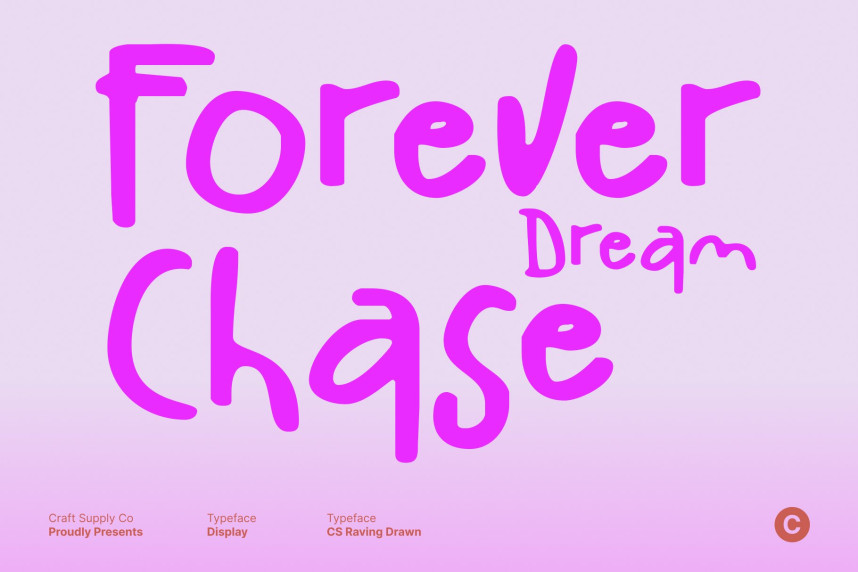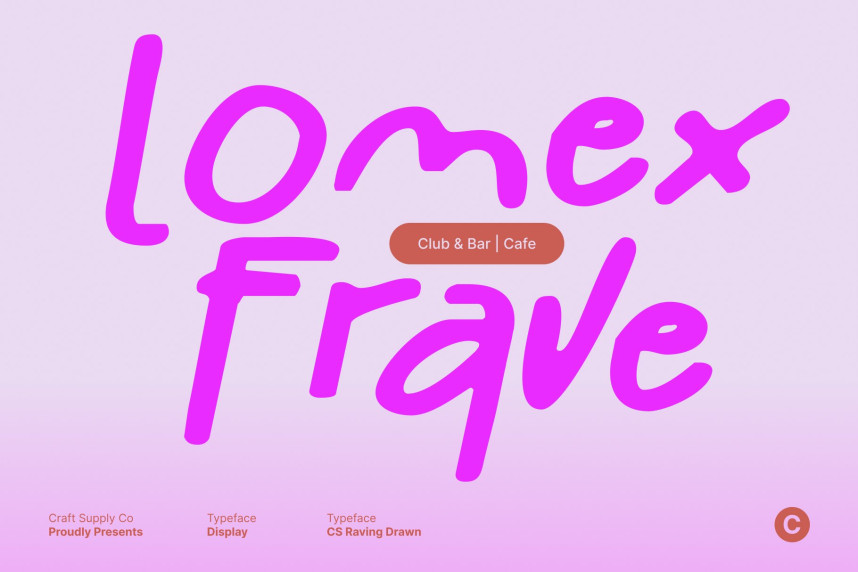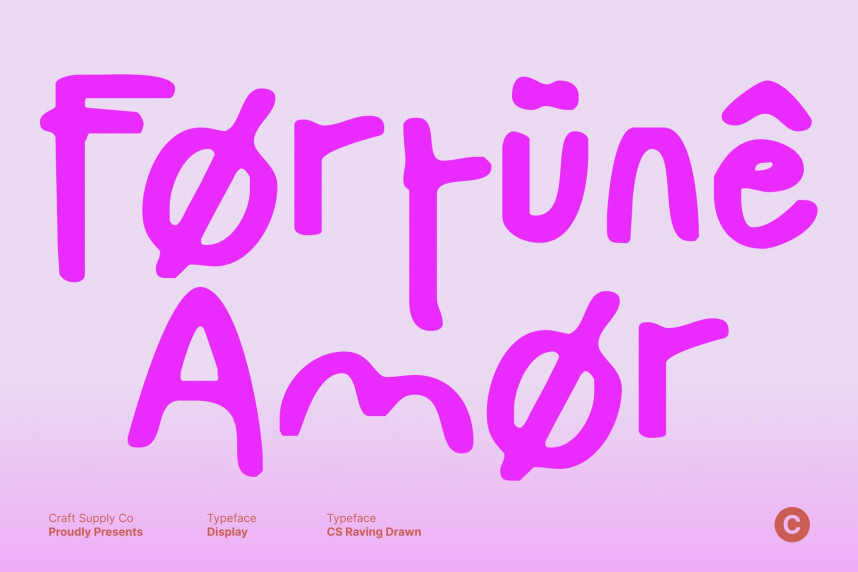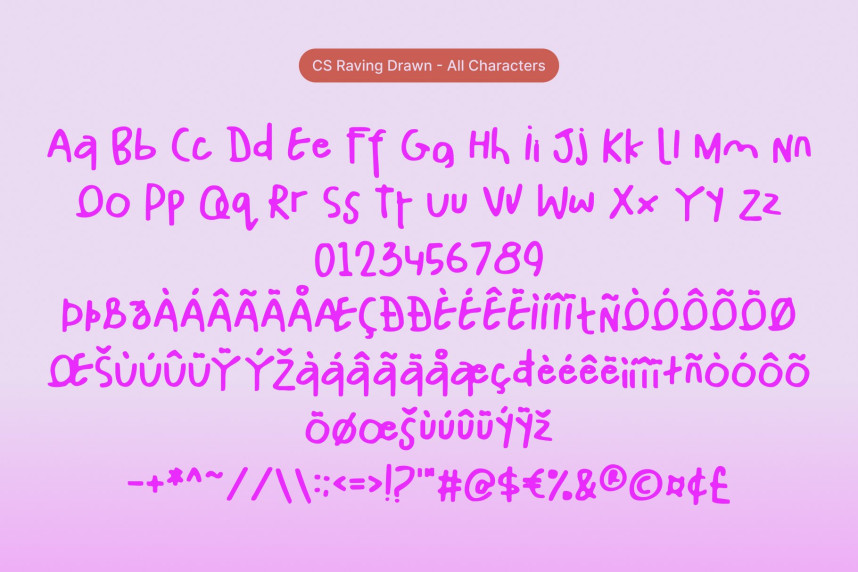
CS Raving Drawn Font
CS Raving Drawn Font – Boldly Irregular and Playful Messy Handwritten Display with Raw Energy. This is a messy handwritten display font built from irregular, freely scribbled strokes. Its bold, gritty appearance captures the spontaneity of real hand-drawn lettering, giving every character a raw and lively personality. The imperfect lines create an authentic, expressive feel that instantly adds character to any design.